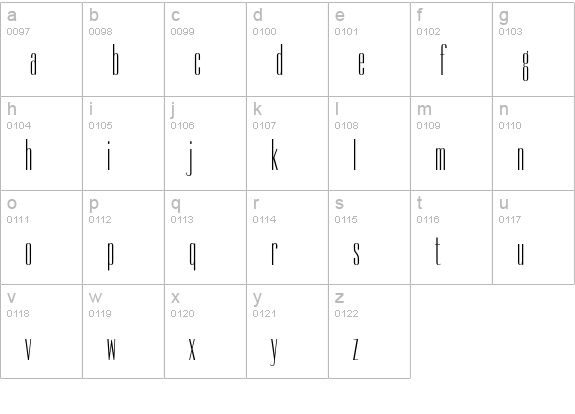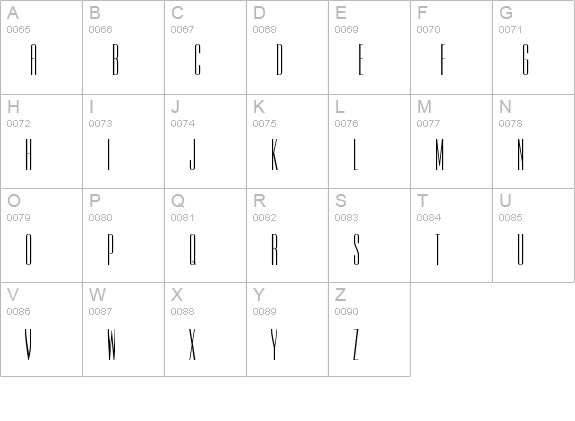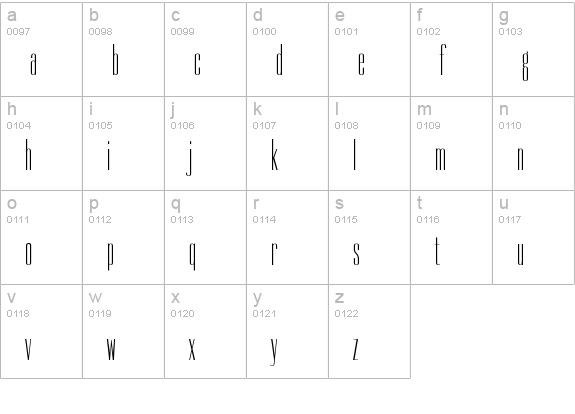
BureauEmpire Font Details
BureauEmpire font is a stunning display typeface that exudes elegance and sophistication. Its bold and modern design makes it perfect for headlines, logos, and branding projects. With its sharp lines and clean aesthetic, BureauEmpire commands attention and leaves a lasting impression. What sets BureauEmpire font apart is that it is not only visually striking but also versatile in its usage. Whether you're designing a poster, website, or packaging, this font will elevate your project to the next level. Its timeless appeal makes it suitable for a wide range of applications, ensuring that your designs stand out from the crowd. And the best part? BureauEmpire font is completely free to download at FontsMarket.com. This means you can access this high-quality typeface without any cost, making it a valuable addition to your design toolkit. Don't miss out on the opportunity to enhance your projects with BureauEmpire font today!